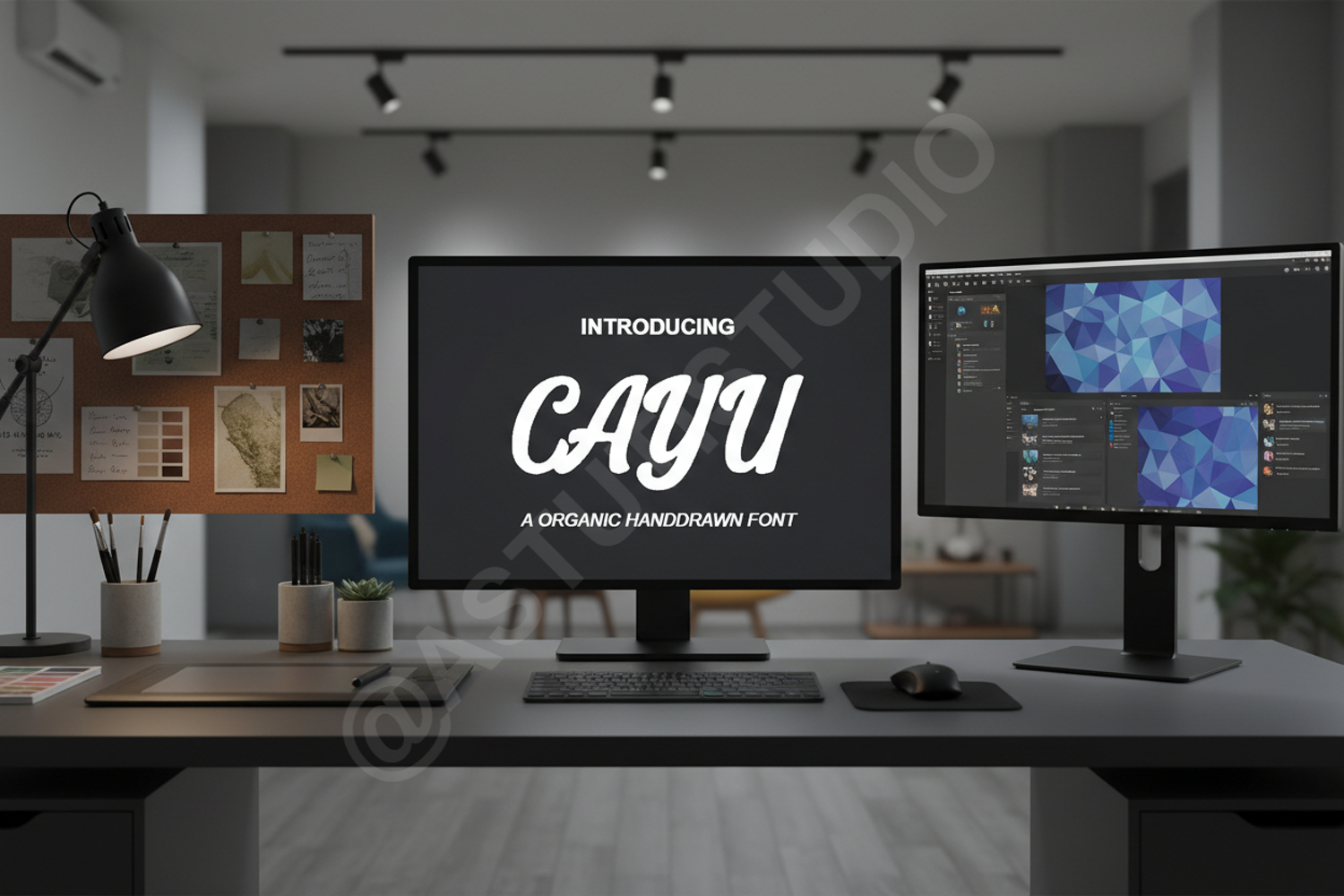
Cayu - Sophisticated Modern Sans Serif Typeface
Cayu
Cayu is a premium sans-serif font that embodies modern elegance and minimalist design. Crafted with precision, this typeface offers clean lines and balanced proportions, making it a versatile choice for designers who seek a professional yet contemporary aesthetic. Whether you are building a brand from scratch or refining an existing project, Cayu provides the clarity and style needed to stand out in a crowded marketplace.
- Full uppercase and lowercase character sets
- Numbers, punctuation, and comprehensive multilingual support
- Branding and Visual Identity: Create impactful logos and cohesive brand systems.
- Editorial Design: Perfect for high-end magazines, lookbooks, and digital brochures.
- Web and App Design: Ensure maximum readability across all digital platforms with its clean structure.
- Marketing Materials: Enhance social media graphics, posters, and advertisements.
- Wedding and Event Stationery: Add a touch of modern sophistication to invitations and programs.